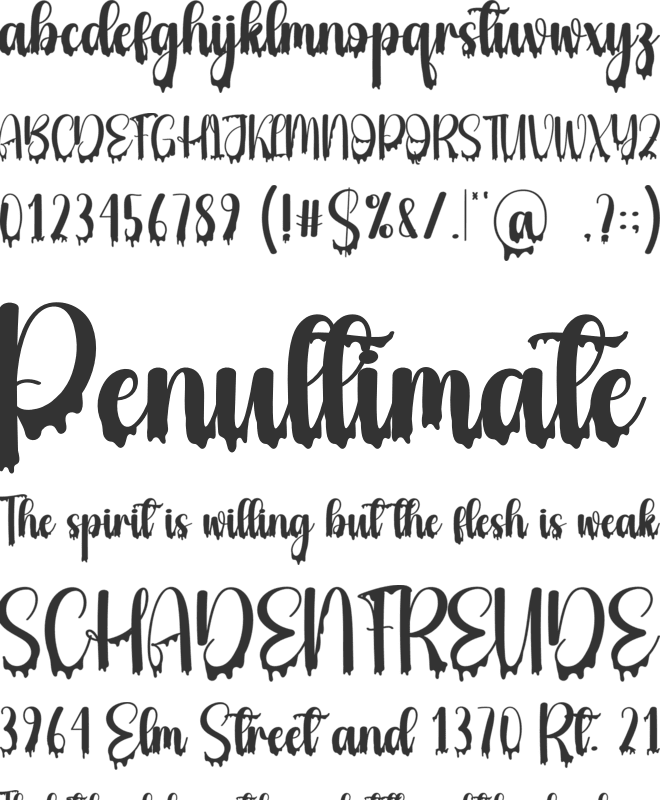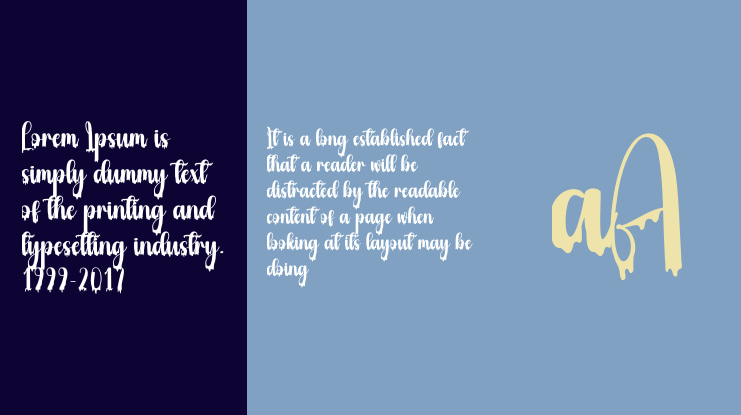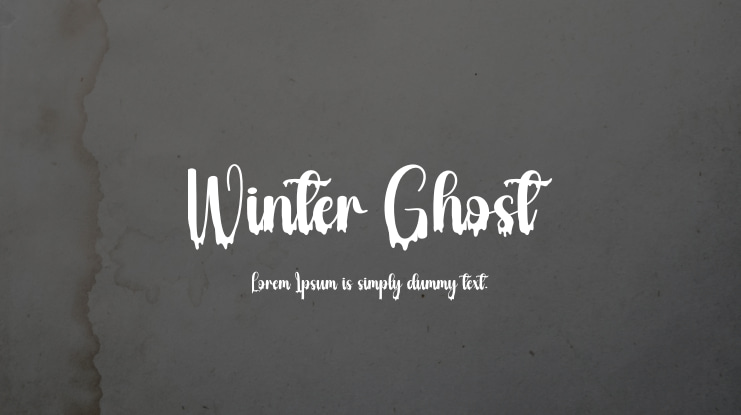
Our latest style letters are ideal for wall displays, wedding invitations, social media logos, advertisements, product packaging, designs, labels, photography watermarks, invitations, stationery, and any project that requires artistic handwriting.